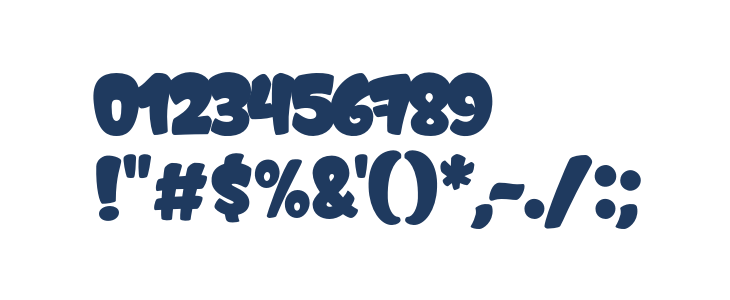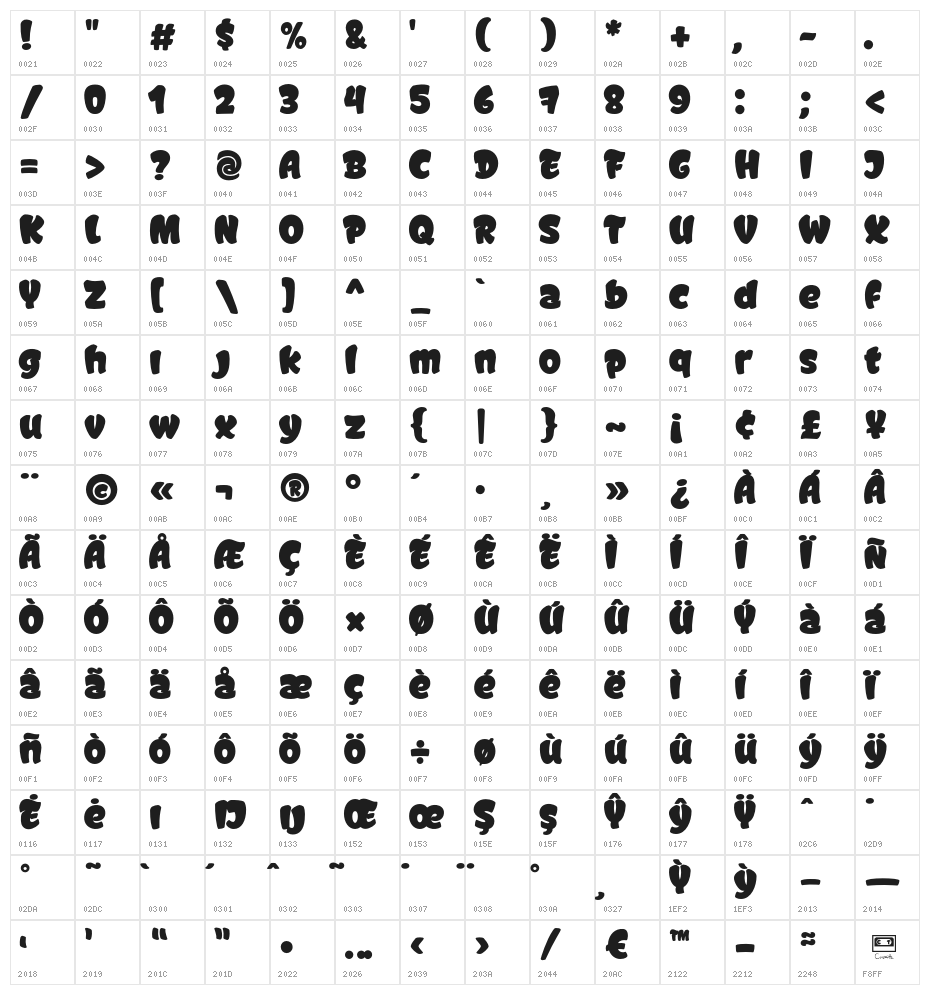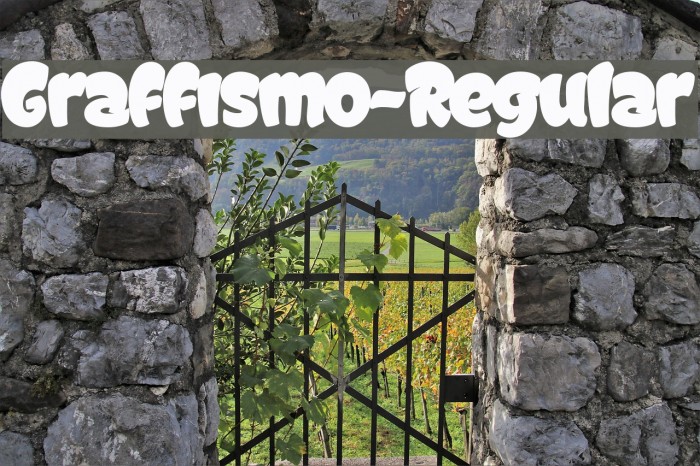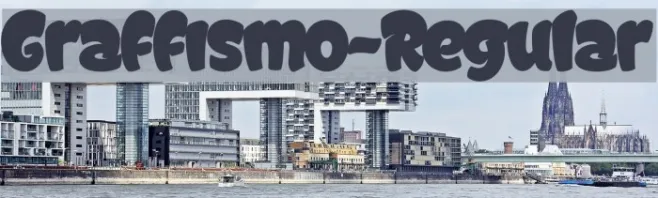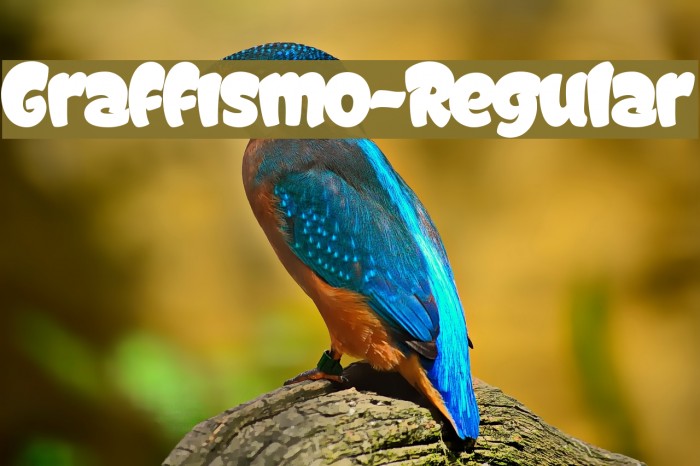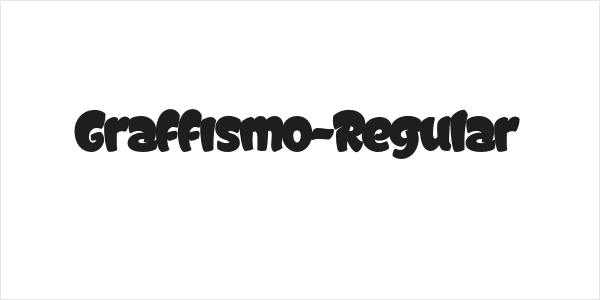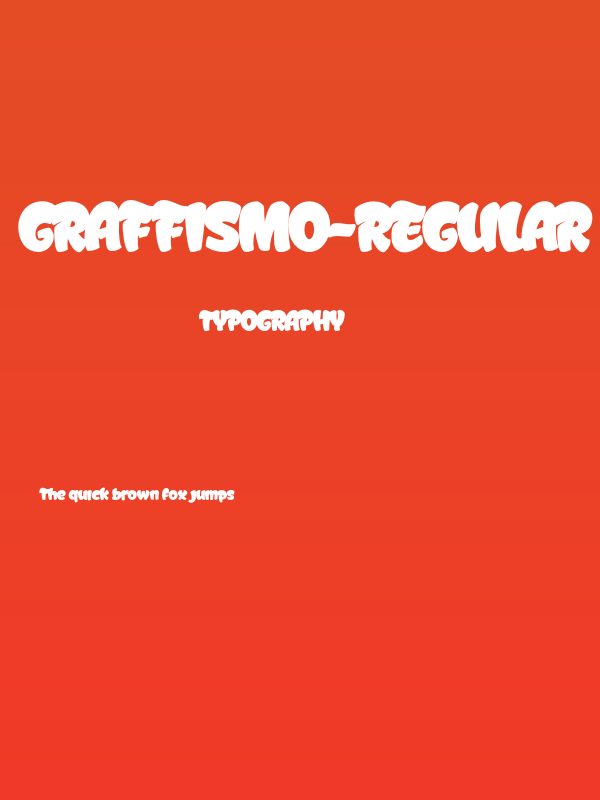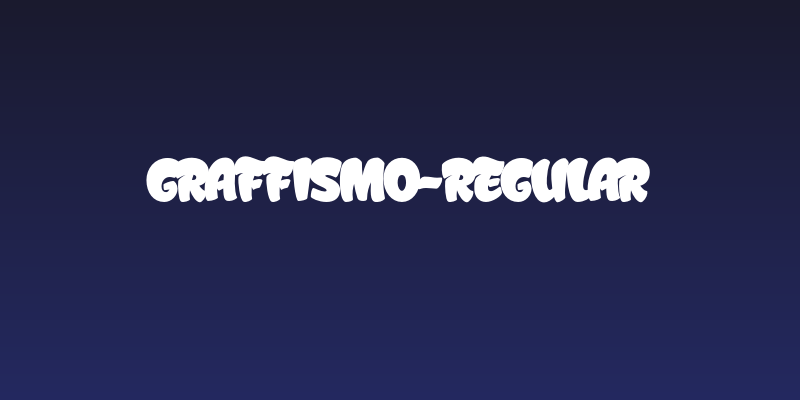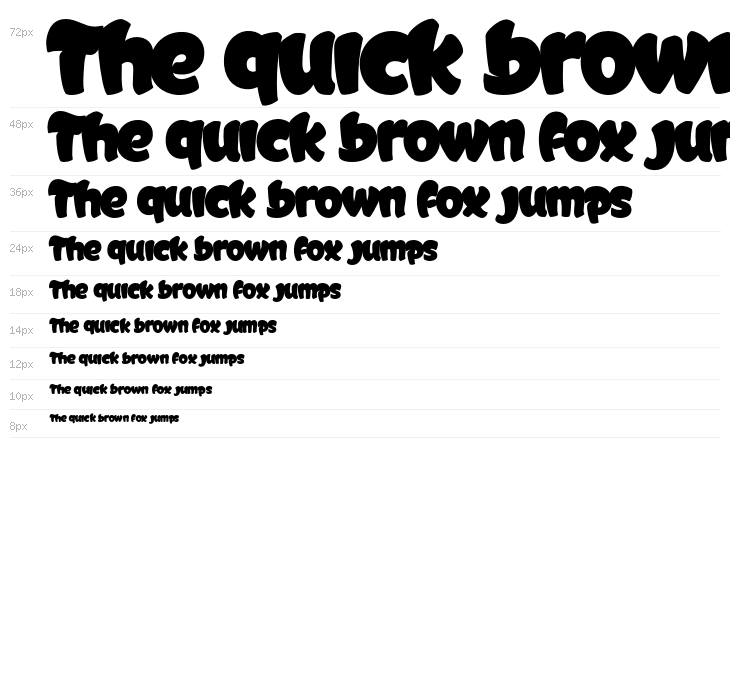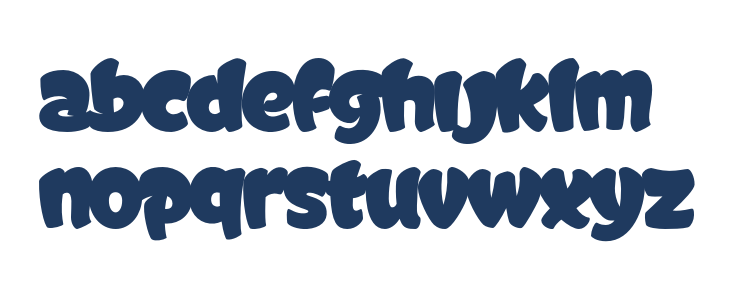
Graffismo-Regular Font
Graffismo-Regular Description
This font features a bold and playful style with rounded edges and a thick, heavy appearance. The characters are tightly spaced, creating a compact and energetic look. The design is reminiscent of graffiti art, with a sense of movement and vibrancy. Each letter has a unique, slightly irregular shape, adding to the dynamic and informal feel. The numbers and special characters maintain the same boldness and playful characteristics, making the font suitable for creative and eye-catching designs.
| Proposed Projects | Ideal for street art designs, posters, children's books, and creative branding projects. |